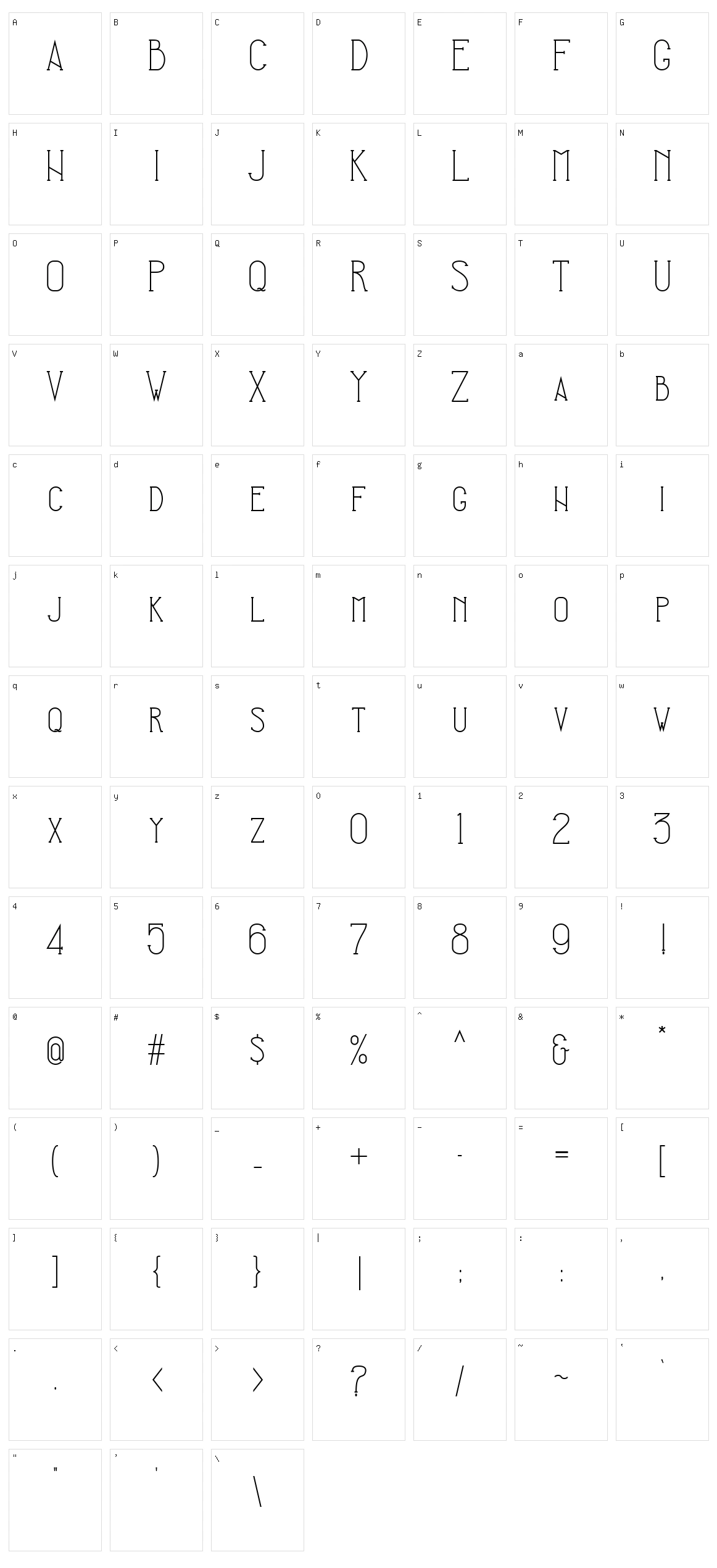
The free font Siegfried is carefully designed by Brickwell Typesmith, showcasing a thoughtful balance of creativity and usability and falls under the Retro font style. When you download the ZIP file, it contains only 23.94 KB of font files, making it lightweight and quick to download. Please review the license details below to understand permitted usage and distribution rights. If license information is not available, we recommend using this font for personal projects only or contacting the author directly for commercial usage permissions.